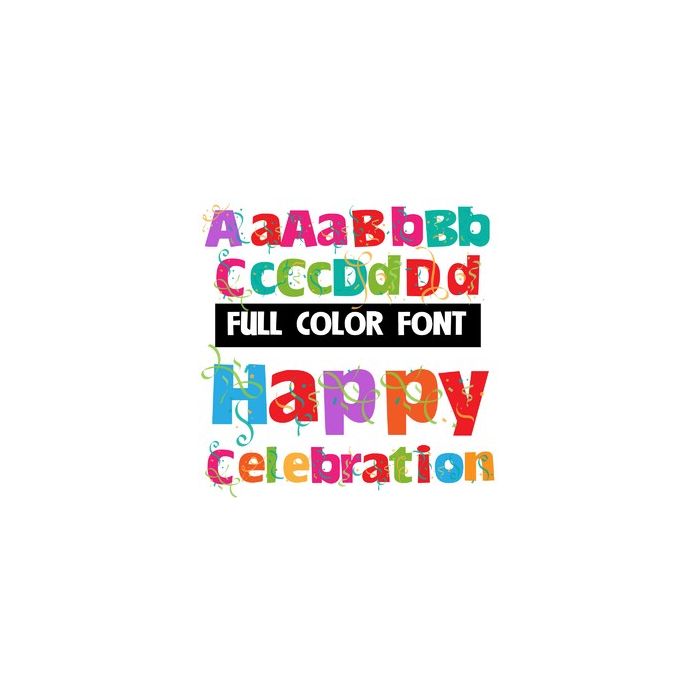
This full-color font features bright, rainbow-colored lettering and confetti throughout. There is an alt case w/ additional colors you can access through your system or Silhouette's glyph map.